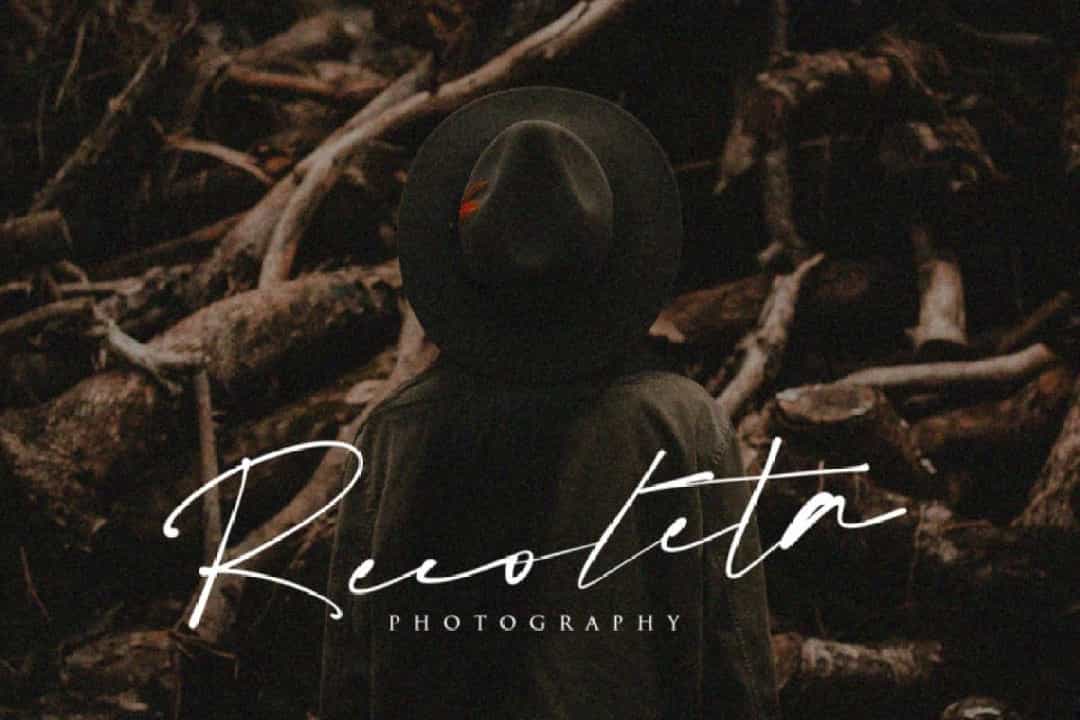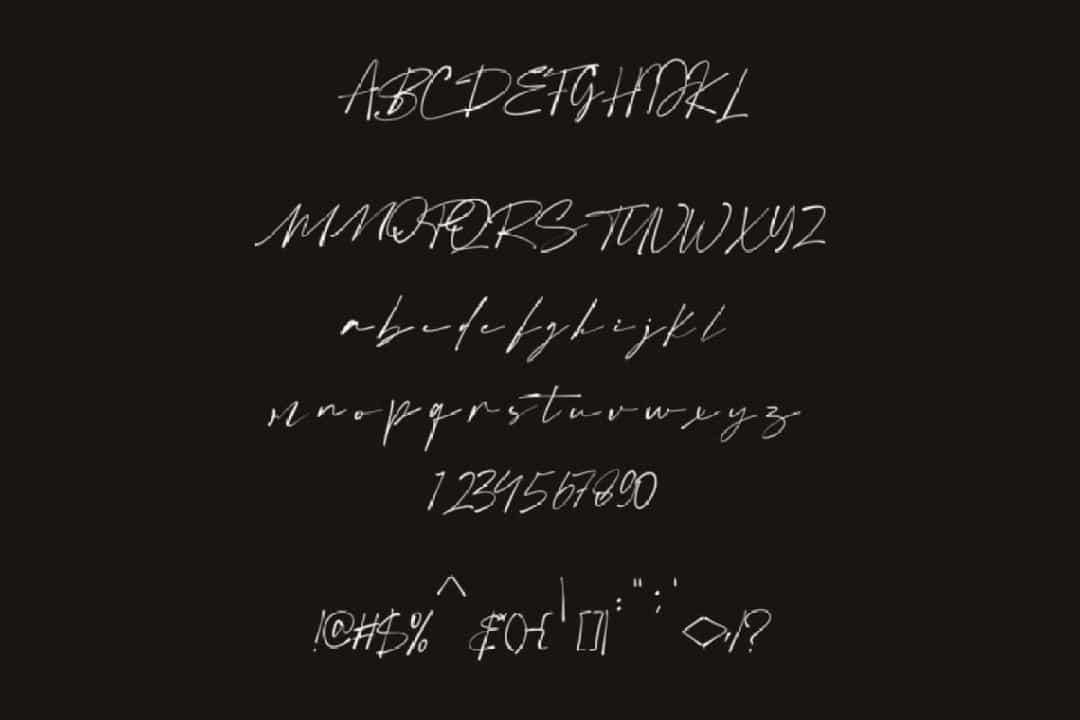
This is a Boldris, a beautiful and simple script font with stylish ligatures and alternates, which will surely give a spectacular look to your designs. These characteristics of modern handwriting fonts make the new generation of designers able to create the unique style of their font for their projects.